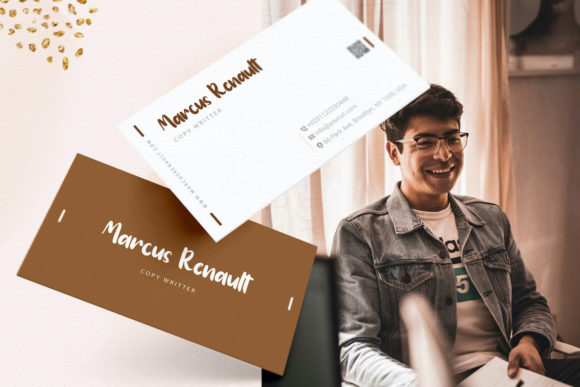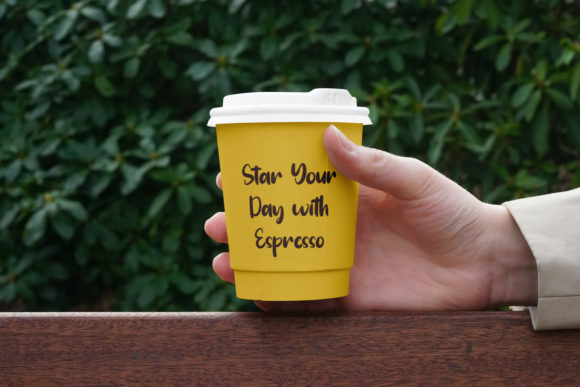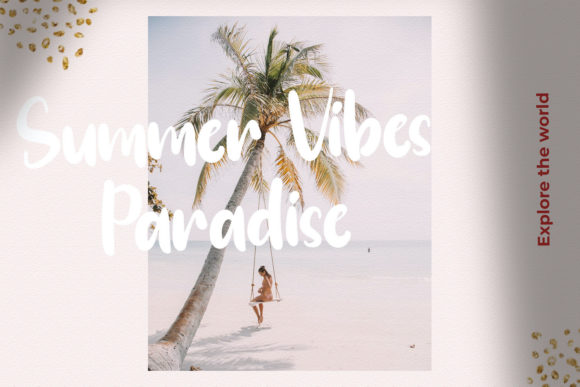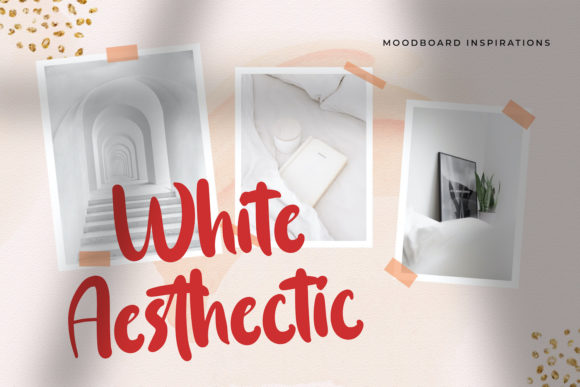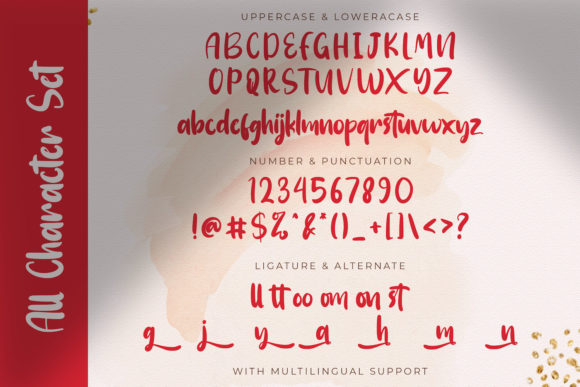
About Sanju Vony Font
Sanju Vony is a delicate, elegant and flowing handwritten font. It has beautiful and well balanced characters and as a result, it matches a wide pool of designs. Add it to your most creative ideas and notice how it makes them come alive!